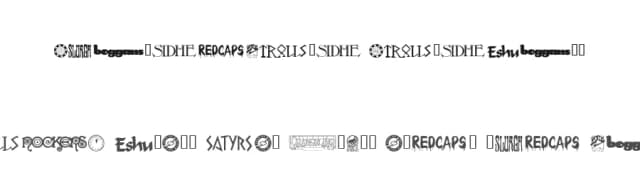
About Nocker Font
Nocker is a decorative font designed by Furdzville. It includes 73 glyphs, a regular weight, TTF (TrueType) format, and 102 languages. Nocker is free to download; check the license details on this page before commercial use. Decorative fonts like Nocker work best for logos, posters, packaging, and standout headlines.
Nocker Font is a decorative font that shines as a display or heading face. Pair it with a clean sans-serif or serif font for body text β the contrast creates a clear hierarchy while the two styles stay balanced and easy to read.
Nocker Font
by Furdzville
Nocker Font is a decorative typeface by Furdzville, ideal for logos, invitations, branding, and creative projects.